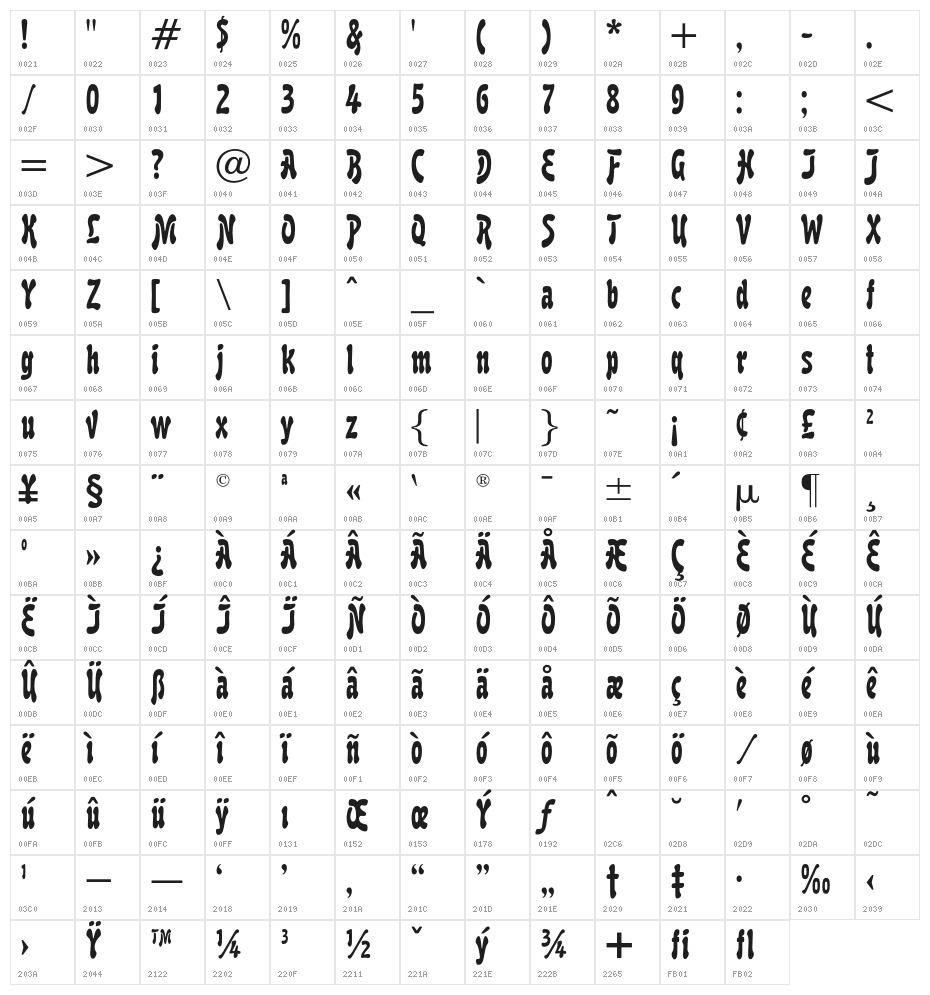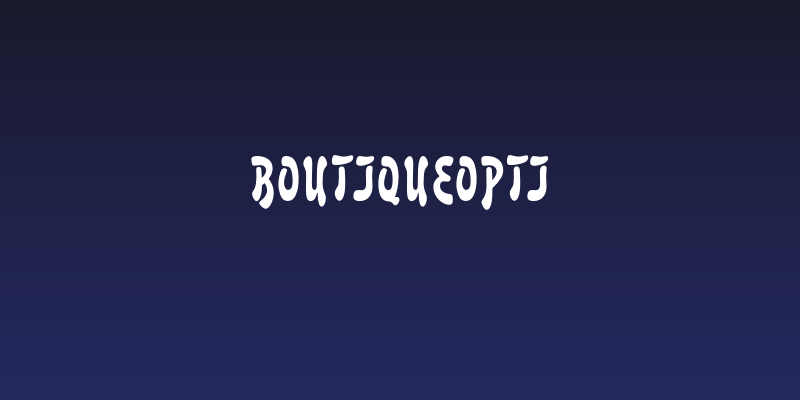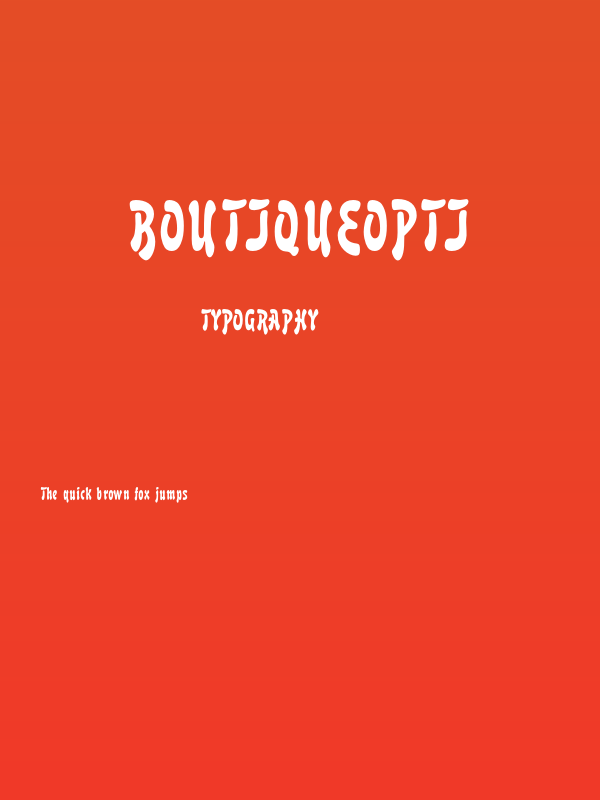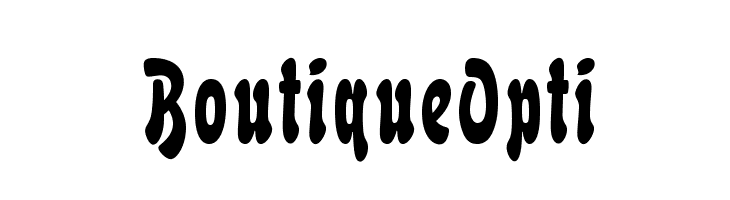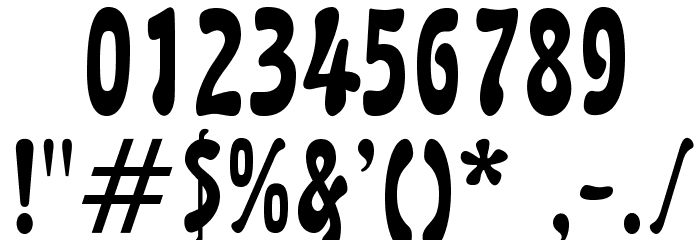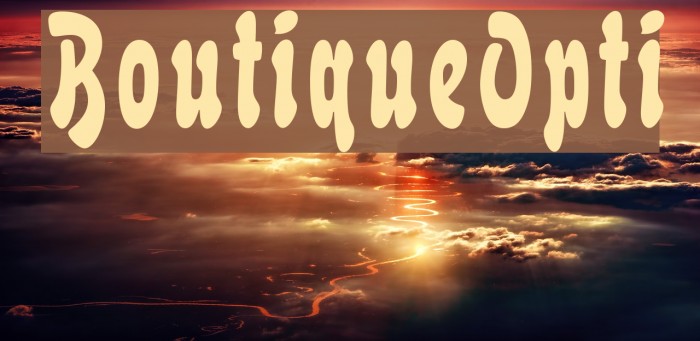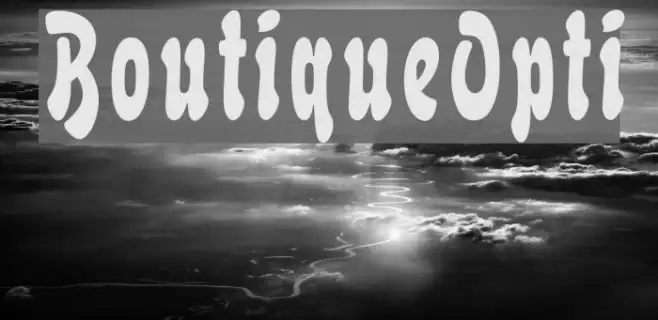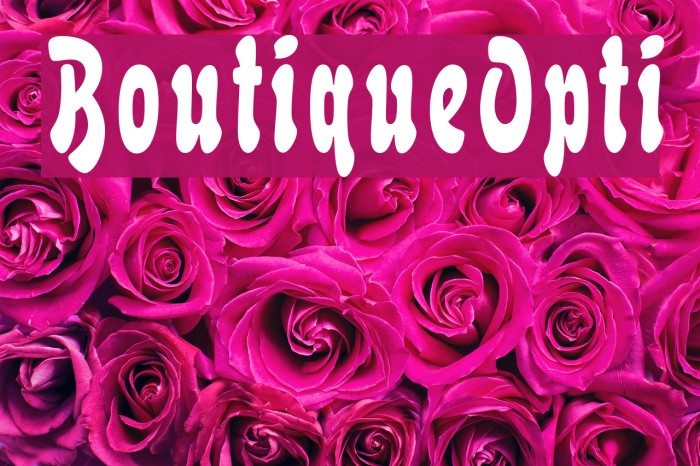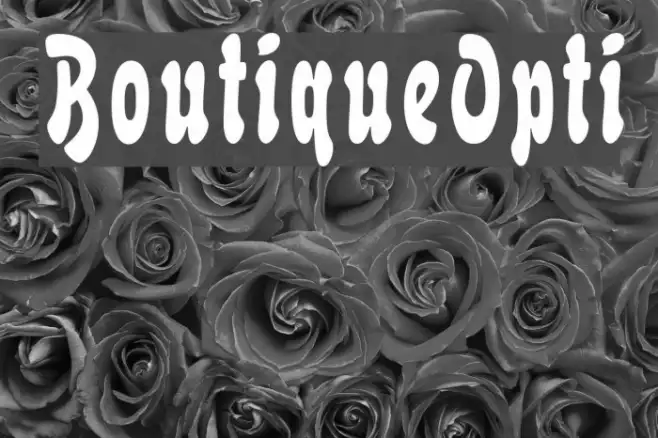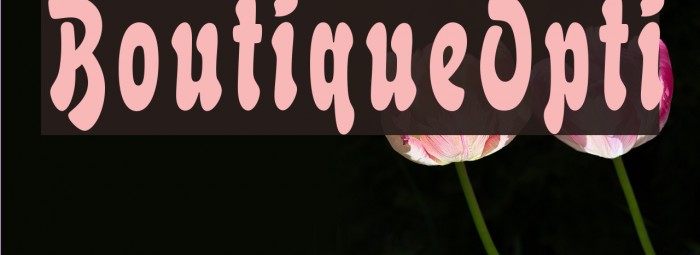
BoutiqueOpti Font
BoutiqueOpti Description
This font features a bold and playful design with a distinctly retro vibe. The characters are thick and rounded, giving them a friendly and approachable appearance. The uppercase letters are slightly taller than the lowercase, maintaining a consistent width that enhances readability. The numbers and special characters follow the same style, ensuring uniformity across all text. The font's unique style makes it stand out, with each letter having a slightly irregular shape that adds to its charm. This font is perfect for projects that require a touch of nostalgia and creativity.
| Overall Style | Vintage |
| Proposed Projects | Ideal for vintage-themed posters, playful branding, children's books, and creative advertisements. |